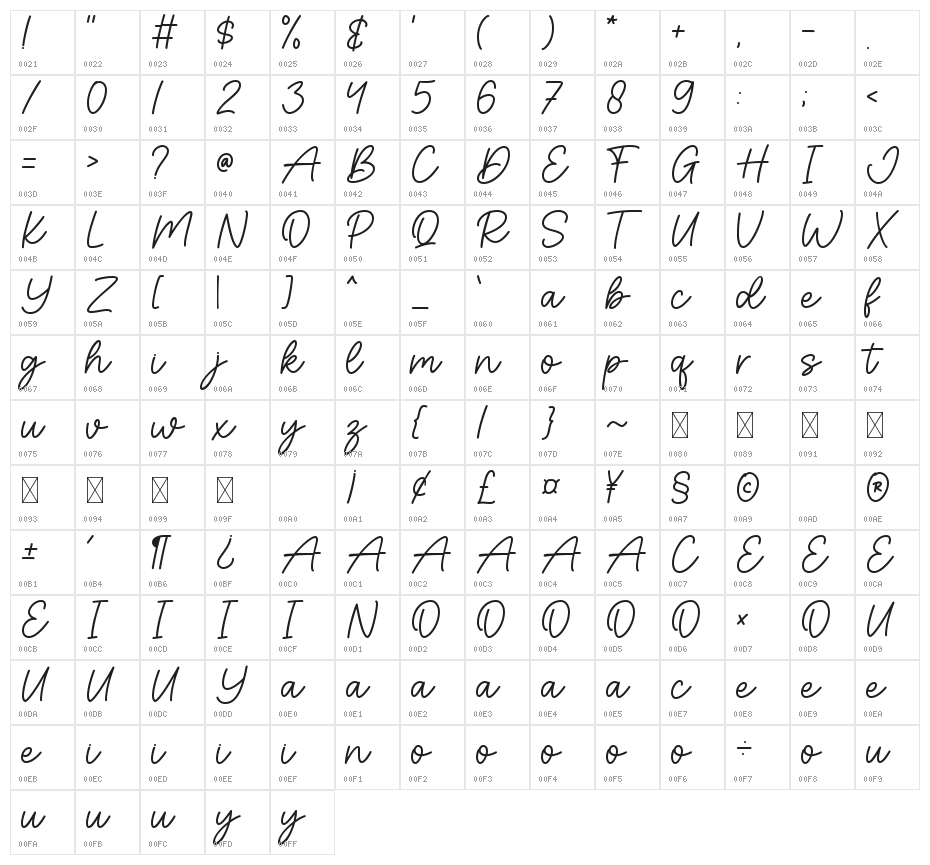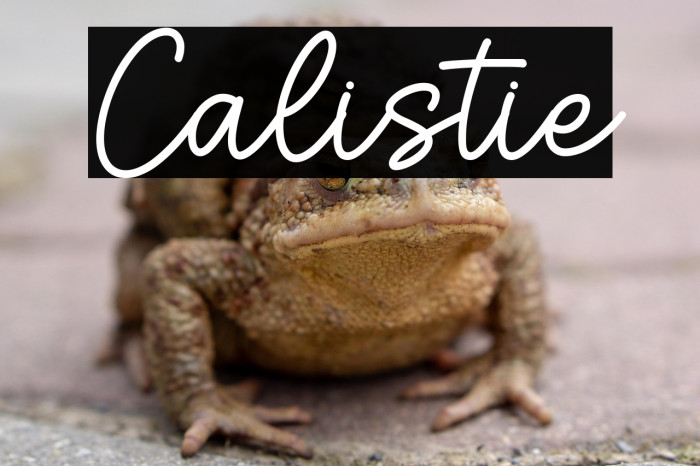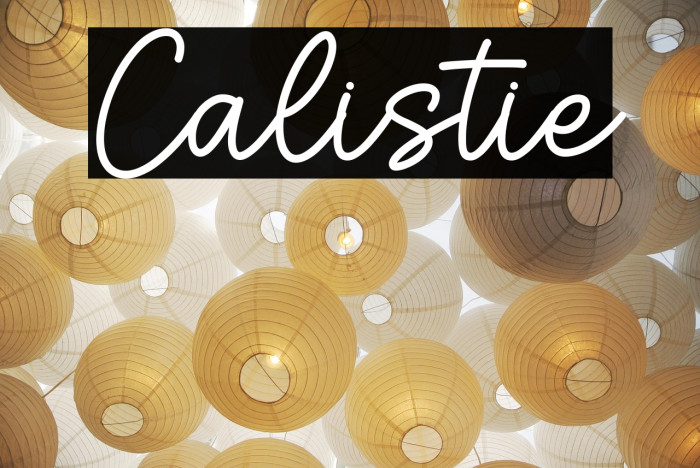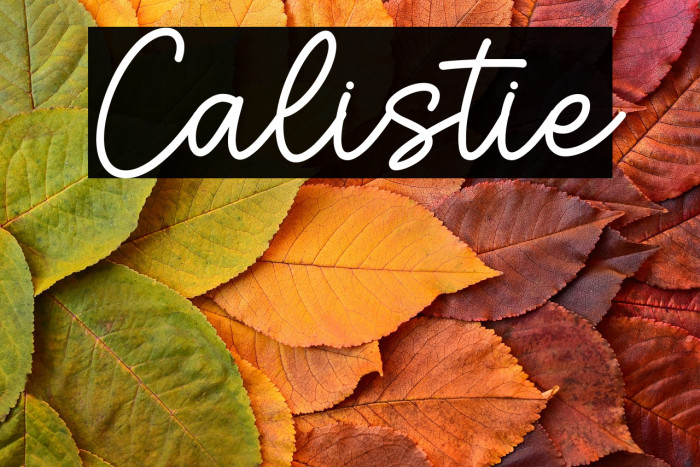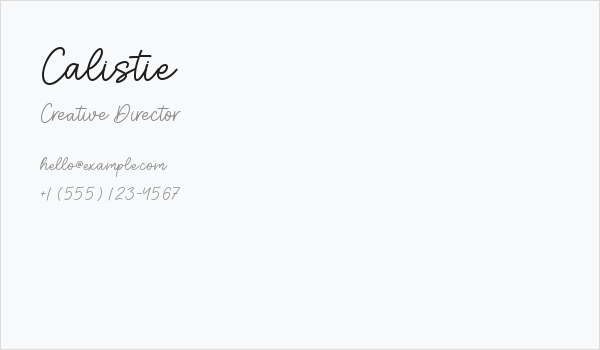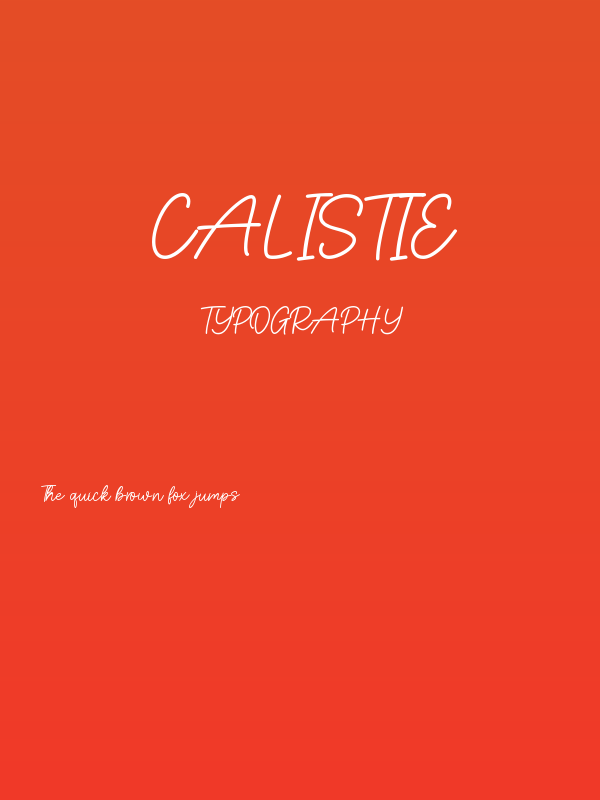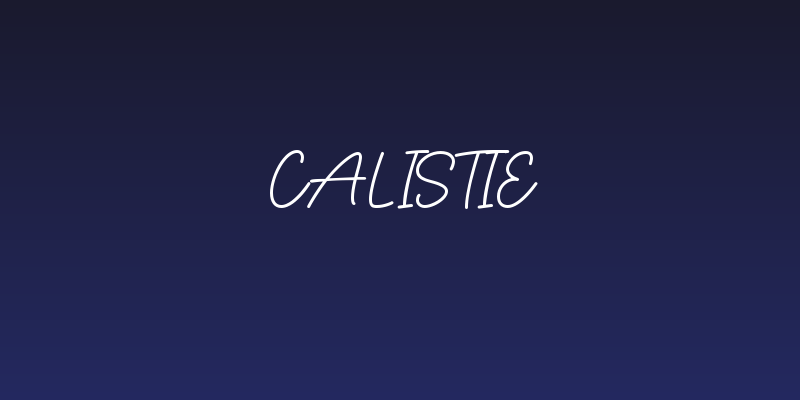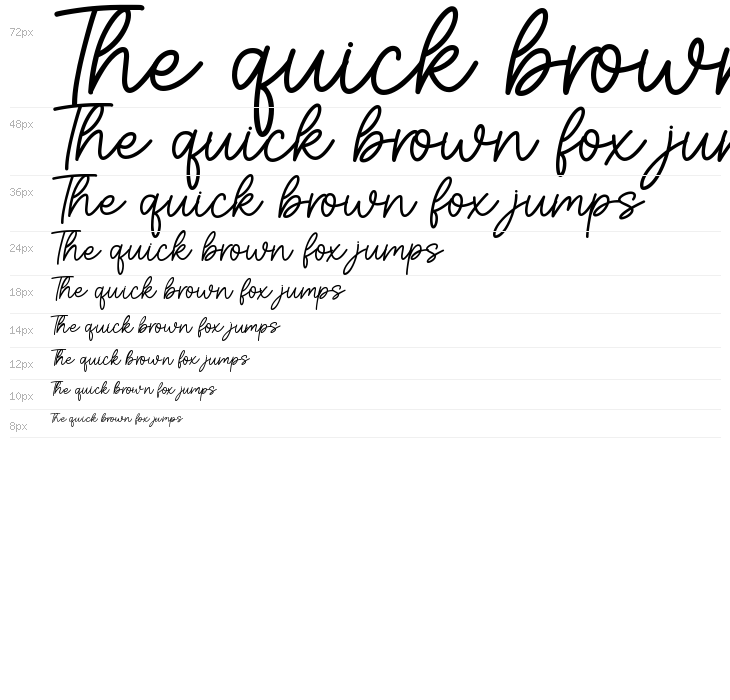
Calistie Font
Calistie Description
This font exudes a casual and flowing handwritten style, characterized by its smooth and continuous strokes. The letters are slightly slanted, giving it a dynamic and lively appearance. The uppercase and lowercase letters maintain a consistent style, with rounded edges and a natural, organic feel. The numerals and special characters align well with the overall aesthetic, making it versatile for various applications. The font's design is approachable and friendly, ideal for projects that require a personal touch.
| Use Case | Logos, Invitations, Social Media |
| Proposed Projects | Ideal for greeting cards, invitations, personal branding, and social media graphics. |